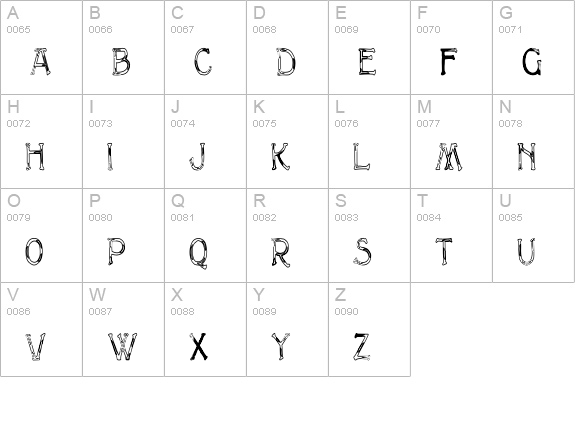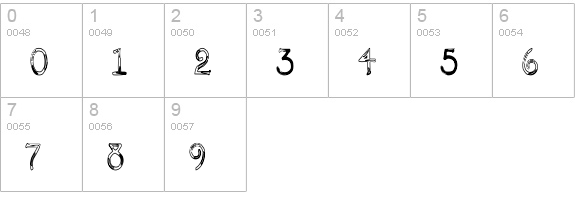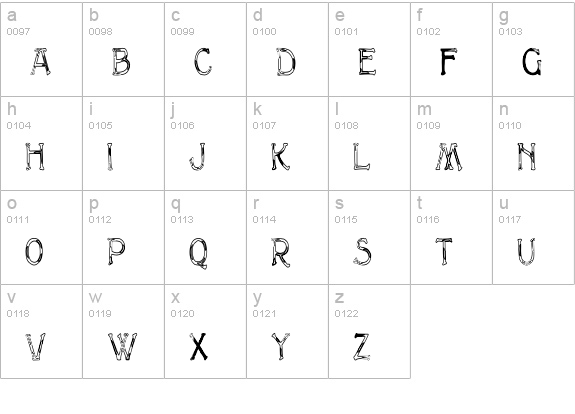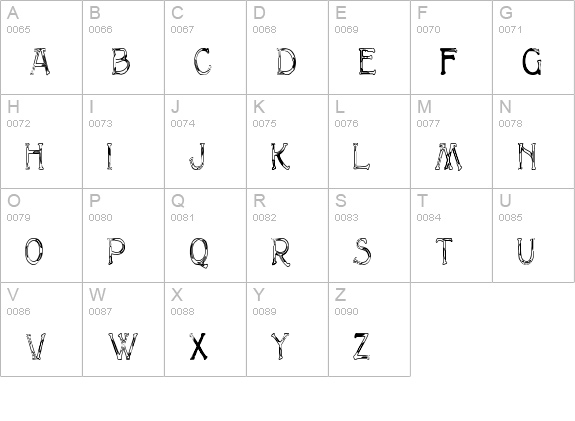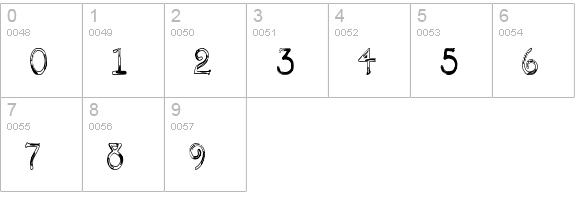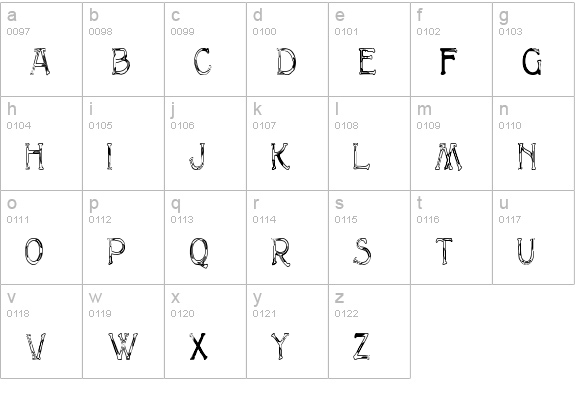
MultiformCapsHC Font Details
MultiformCapsHC font is a stunning display font that combines elegance with versatility. With its unique blend of modern and classic elements, this font is perfect for creating eye-catching headlines, logos, posters, and more. The MultiformCapsHC font features stylish capital letters with intricate details that will make your designs stand out. What's even better is that MultiformCapsHC font is available for free download at FontsMarket.com. Whether you are a professional designer or just looking to add a touch of sophistication to your projects, this font is sure to impress. Don't miss out on the opportunity to enhance your creations with the exquisite MultiformCapsHC font today!